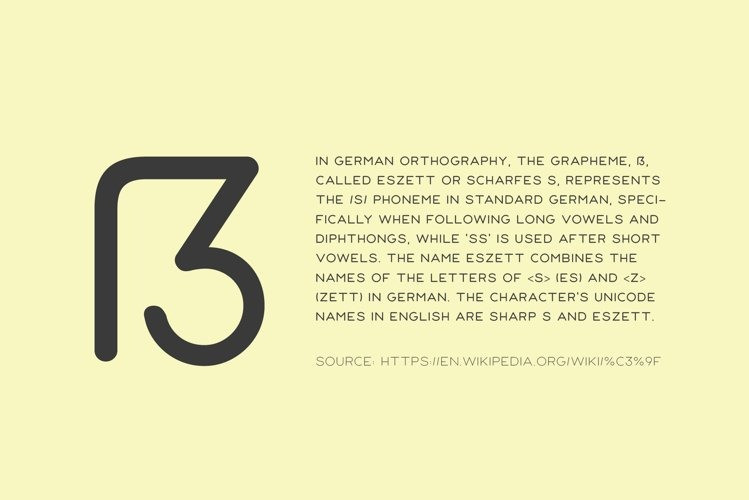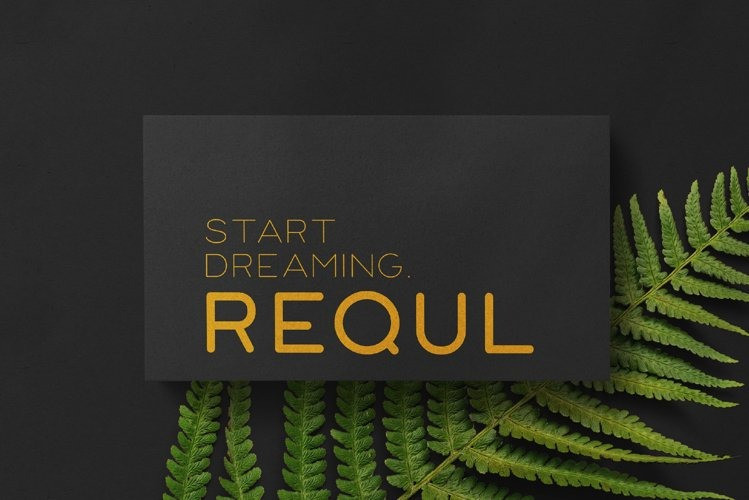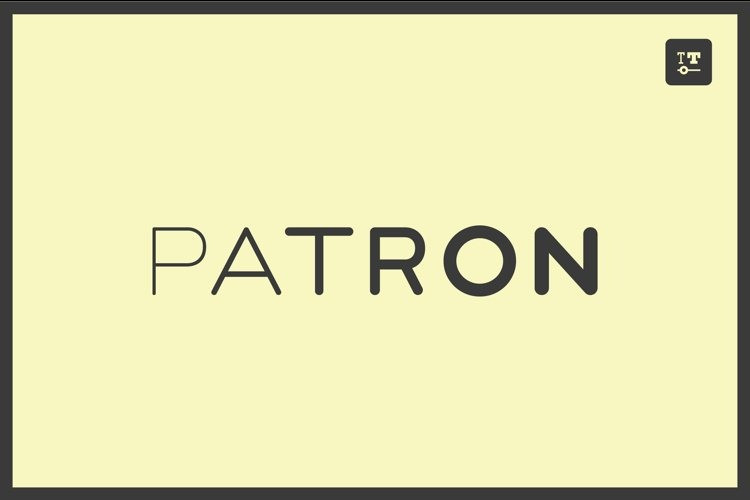
Patron Sans Serif Font
Our first variable font will match your next project perfectly – guaranteed! Patron is a minimal monoline sans serif font with an adjustable font weight. It has round edges to emphasize the modern look of the glyphs and is perfect for any logo, branding, invitation cards, headlines, or marketing material. Like it industrial? Try out the stencil letters by typing in caps.
Patron also has wide multilingual support, symbols, and numbers. The full typeface is a variable font, so you can adjust the font weight individually!